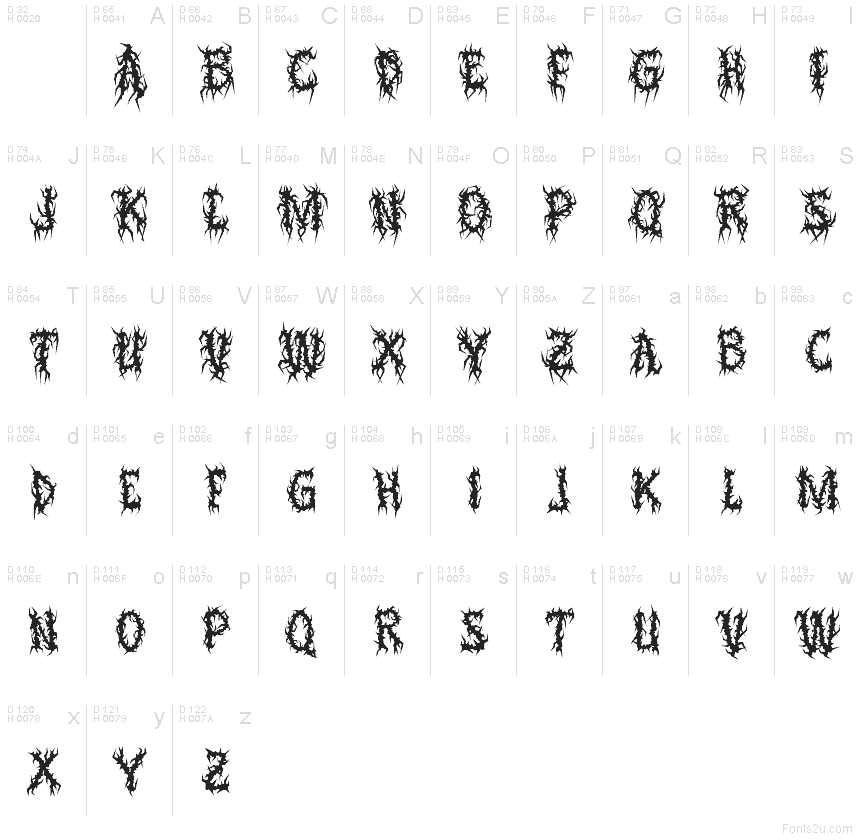
CS Scream Regular Demo
CS Scream font by Craft Supply Co. sends ominous chills through its unsettling, jagged style and thorn-like elements. The aggressive aesthetic of this horror-themed display font evokes chaotic and intense atmospheres that are every bit as menacing as they are gruesome.